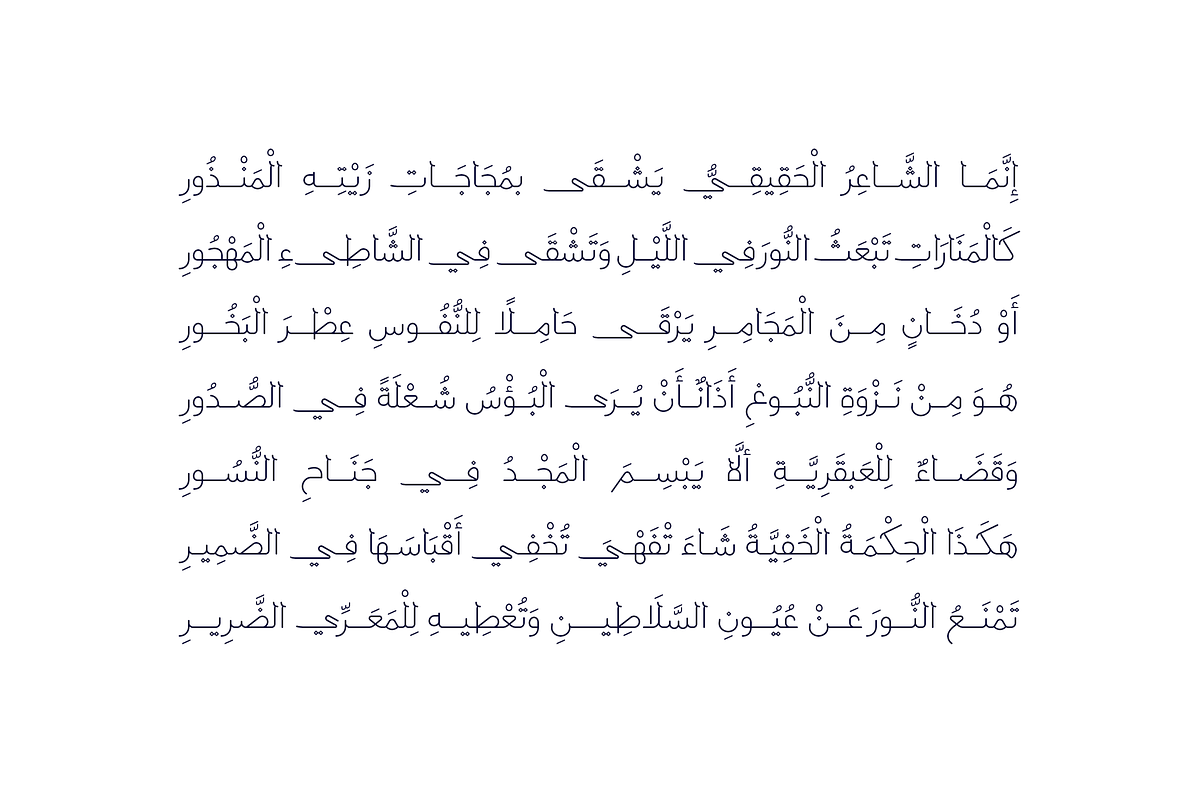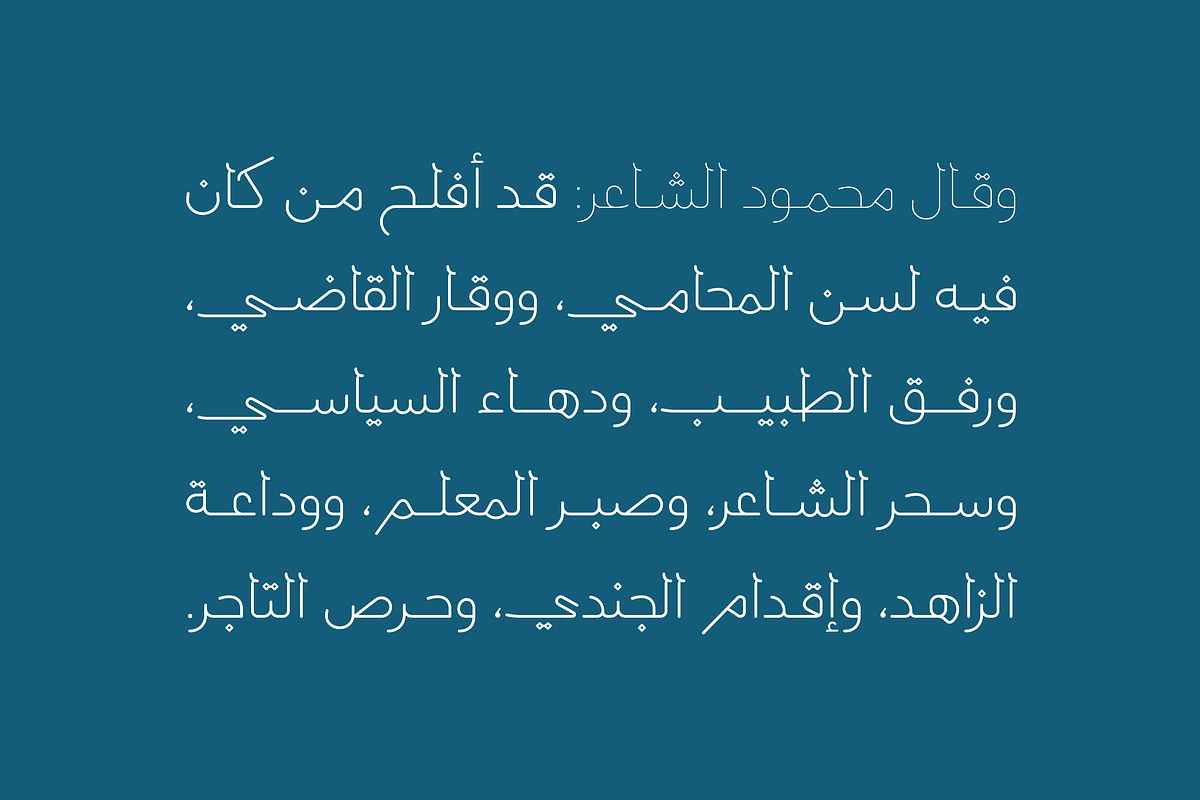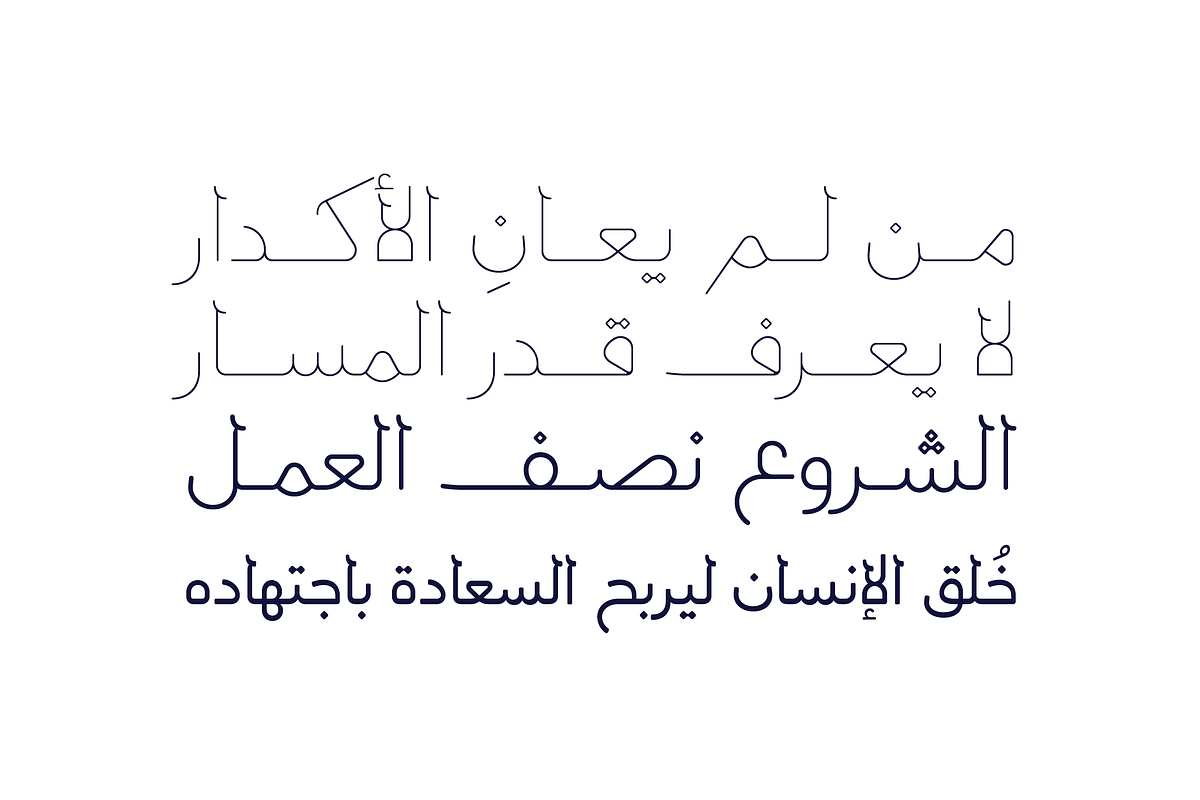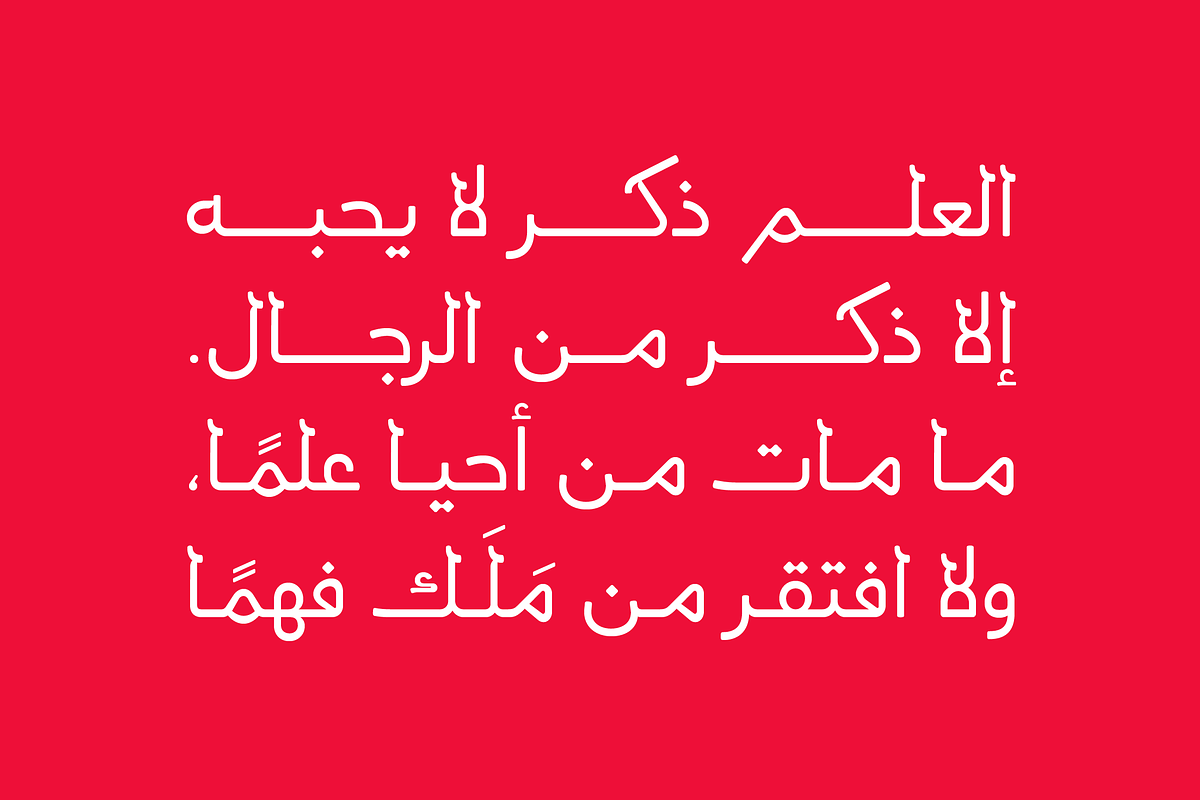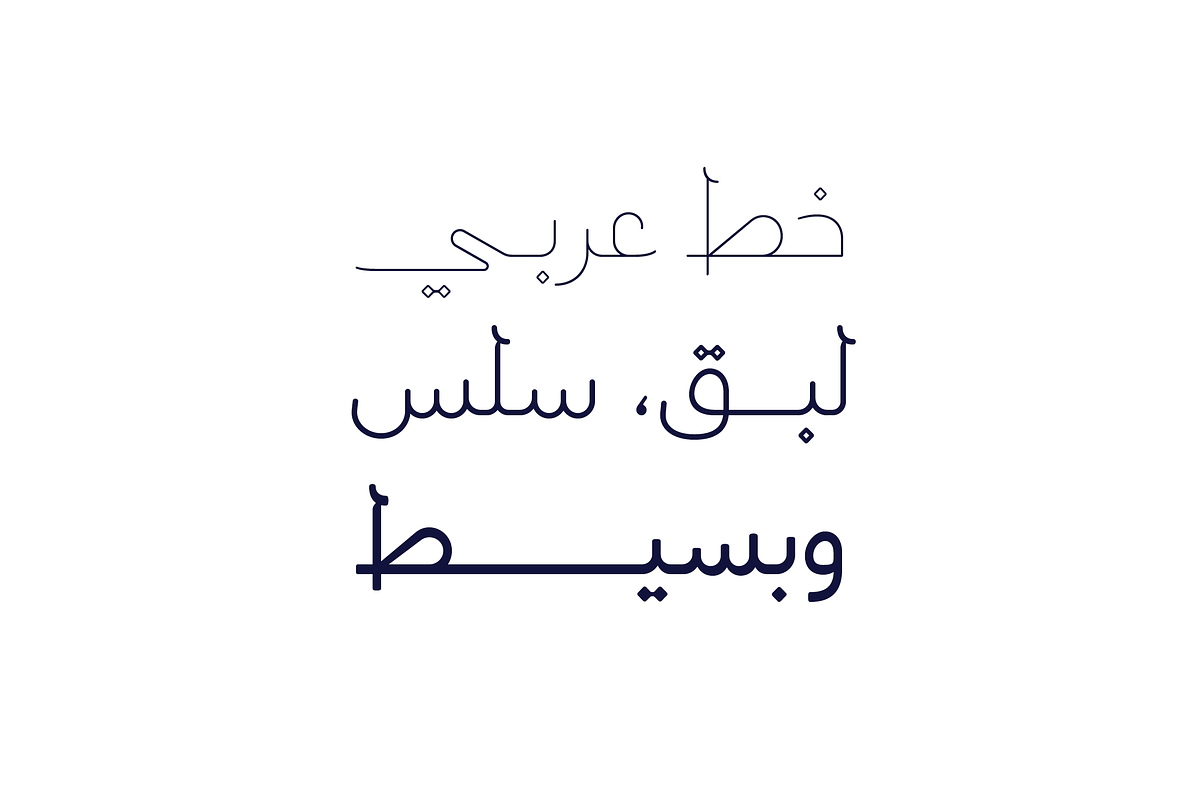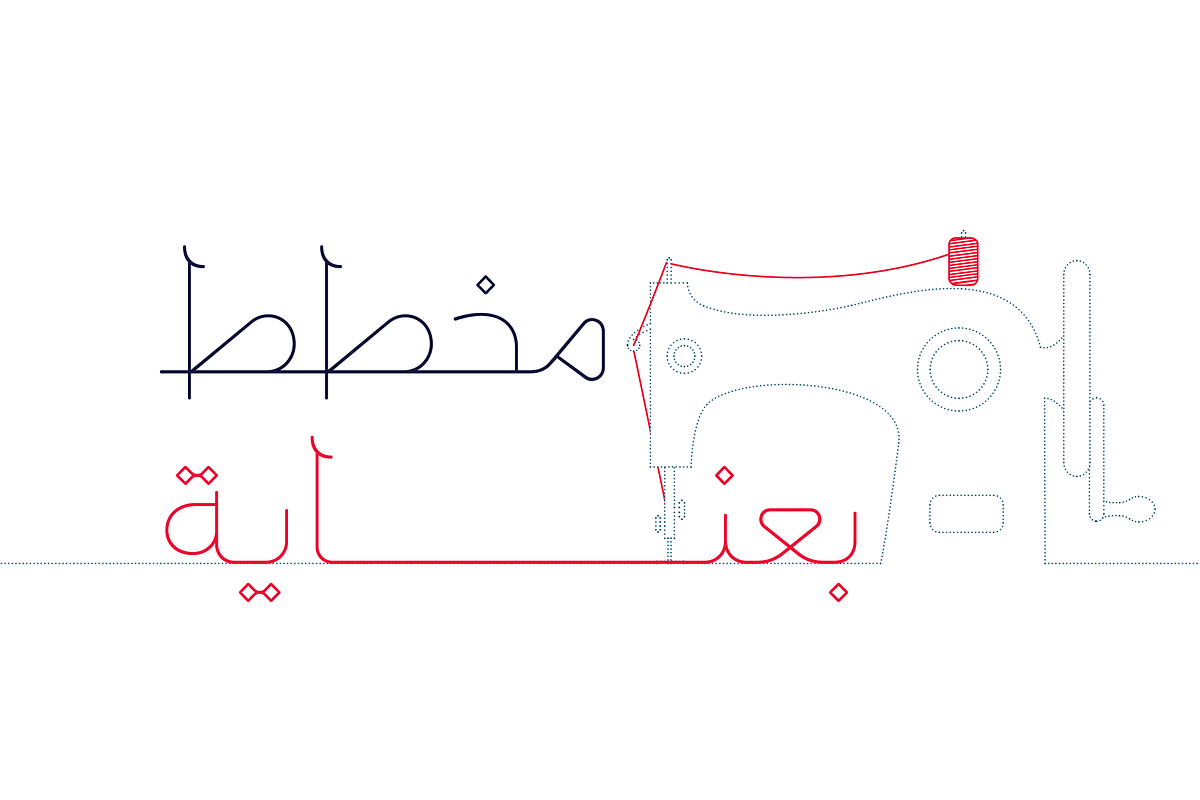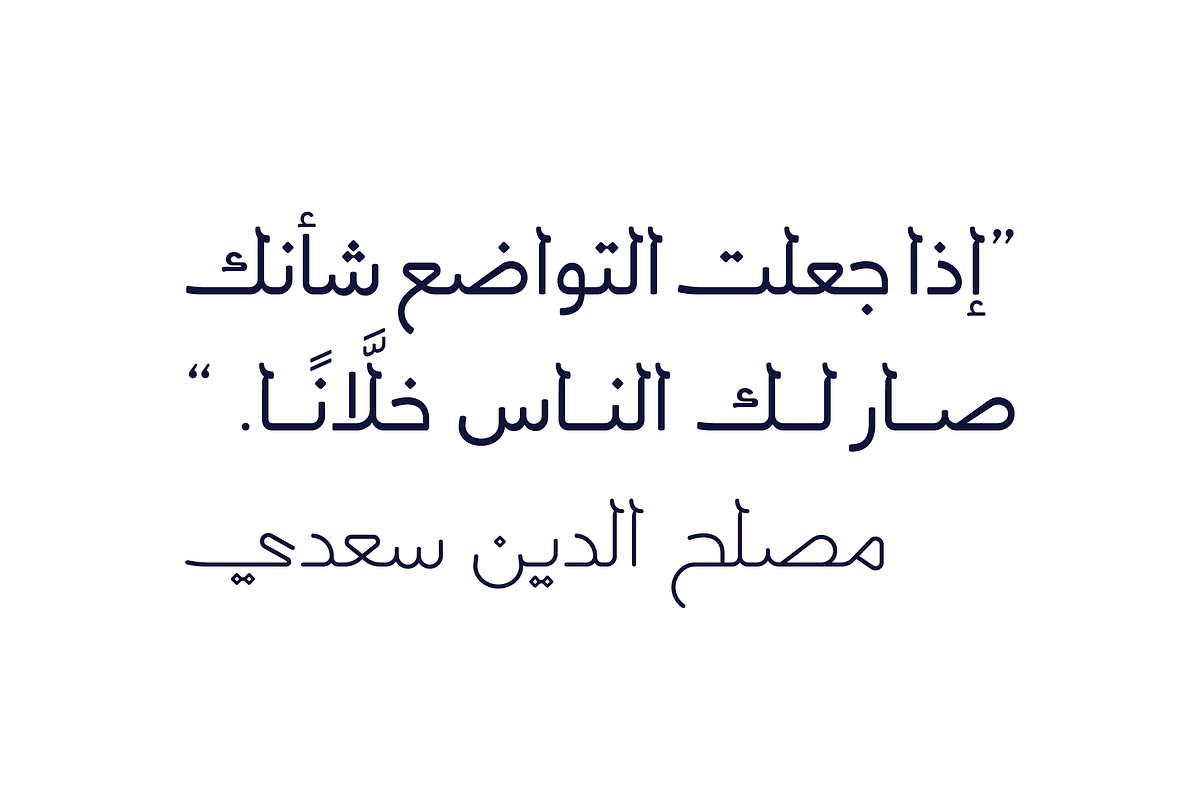
Labaqah - Arabic Font | خط لباقة
Labaqah (the Arabic word for tactfulness) is an Arabic typeface that blends the traditional Naskh style with a simple handwriting flavor. The typeface features three weights (Light, Regular, and Bold) and is suitable for web, print, and mobile applications.
- Labaqah Light
- Labaqah Regular
- Labaqah Bold